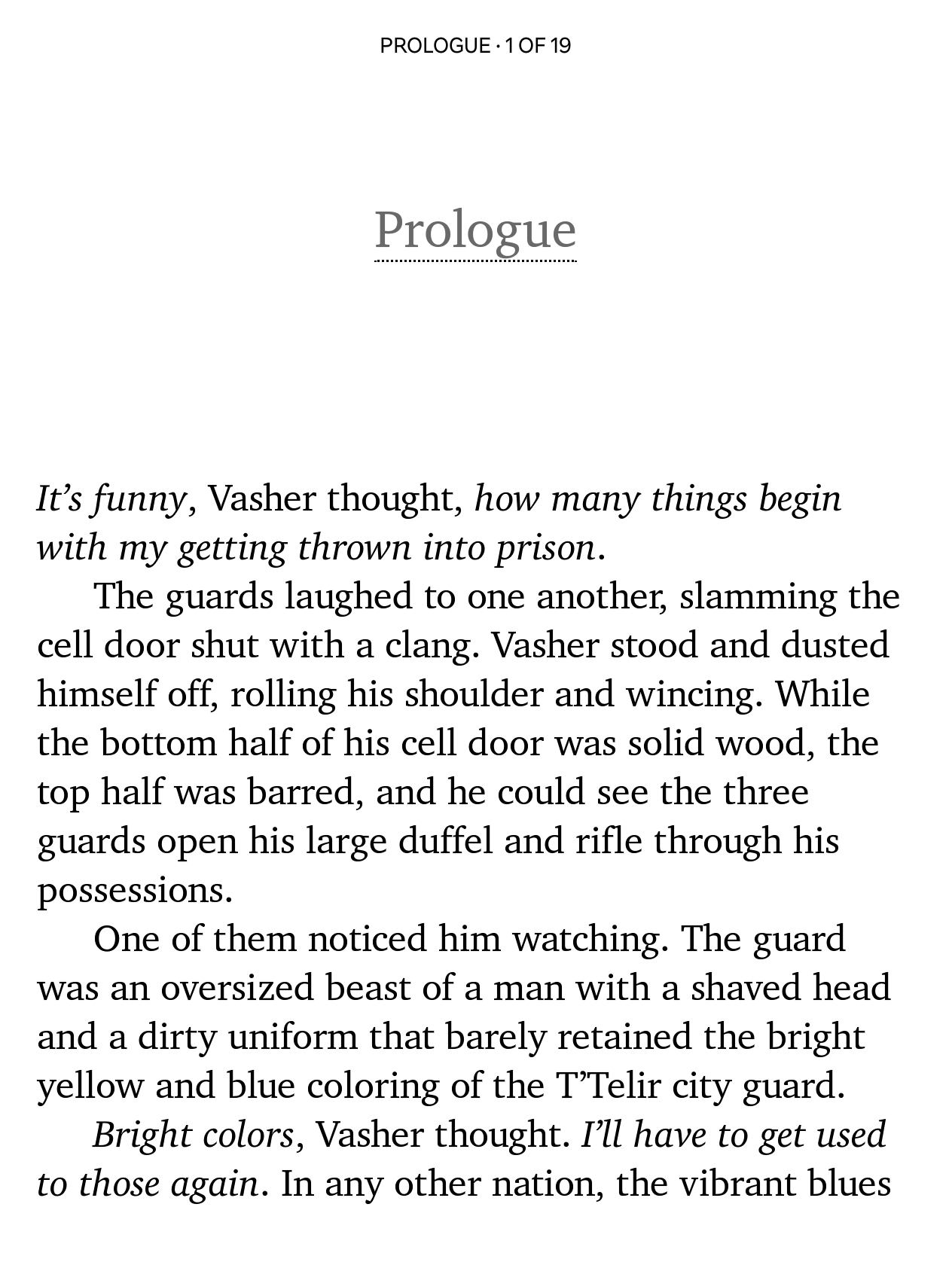
# Cartisse This repository contains **Cartisse**, a modified version of [XCharter](https://www.ctan.org/tex-archive/fonts/xcharter/), which is an extension for [Bitstream Charter](https://en.wikipedia.org/wiki/Bitstream_Charter). ## What is this? **Cartisse is specifically intended to be used with Kobo e-readers.** You can also use it for general word processing and the like, but if you need more glyph coverage or advanced typography features I recommend looking at alternatives like [Charis](https://software.sil.org/charis/download/). Take a look at a screenshot of it on my [Kobo Libra Color](https://be.kobobooks.com/nl/products/kobo-libra-colour?variant=40852311736406) here: This version omits a few ligatures that consistently looked bad on e-ink displays and has adjusted metrics for improved line height. A more verbose [license](./LICENSE) is also included as part of the distributed font files. ## How was this made? Manually, for the most part, with FontForge. - A few ligatures that did not render well on certain e-readers were removed, namely: `ff`, `ffi`, `ffl`, `fl`, `fi`. - Some minor tweaks to kern pairs were made to tighten up the look and feel of the font, and to address the removed ligatures. - Improved line height metrics were set (updated ascent/descent metrics). - The font was renamed and re-exported (see "Export settings" below). - The copyright notice has been updated to reflect the new name. ### Kern pair changes I've included a file called [kern.md](./doc/kern.md) in this repository. I've checked and improved kern pairs to ensure these particular sentences look fine; they include often tweaked kern pairs. ### Export settings Make sure to check the following items when exporting as TTF: ![Take a look at this screenshot.](./doc/export.png) In particular, **old style 'kern'** is important for compatibility with older devices, like the Kobo devices that I am targeting specifically. ### Source files I've included the FontForge files in this repository, you can find them in the `/src` folder. You can download the TrueType version of these fonts via [Releases](https://github.com/nicoverbruggen/cartisse/releases), which are ready to be copied to your favorite e-reader. Alternatively, you can export the source files yourself. ## License In 1992 Bitstream donated a version of Charter, along with its version of Courier, to the X Consortium under terms that allowed the font to be modified and redistributed. This font is _not_ related to the proprietary version, Charter BT. ``` Copyright (c) 1989-1992, Bitstream Inc., Cambridge, MA. Copyright (c) 2009, 2010, 2011, 2012 Andrey V. Panov Copyright (c) 2013-2024 Michael Sharpe Copyright (c) 2025-2026 Nico Verbruggen XCharter is an extension of Bitstream Charter, whose original license is reproduced below, as required under the terms of that license. The extension provides small caps, oldstyle figures and superior figures in all four styles, accompanied by LaTeX font support files. Cartisse is based on XCharter, but contains some metrics modifications and removes certain ligatures. --- You are hereby granted permission under all Bitstream propriety rights to use, copy, modify, sublicense, sell, and redistribute the 4 Bitstream Charter (r) Type 1 outline fonts and the 4 Courier Type 1 outline fonts for any purpose and without restriction; provided, that this notice is left intact on all copies of such fonts and that Bitstream's trademark is acknowledged as shown below on all unmodified copies of the 4 Charter Type 1 fonts. BITSTREAM CHARTER is a registered trademark of Bitstream Inc. ```